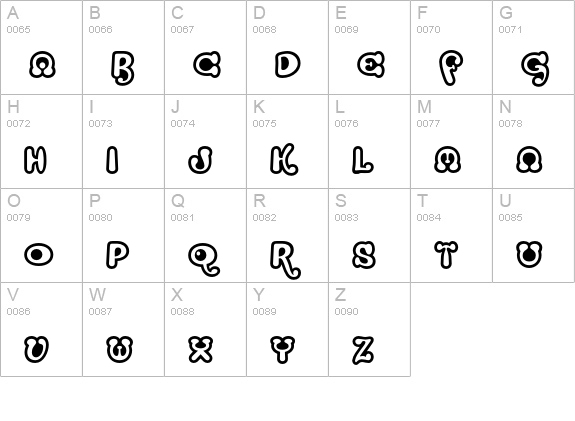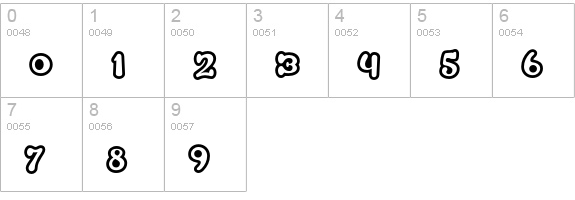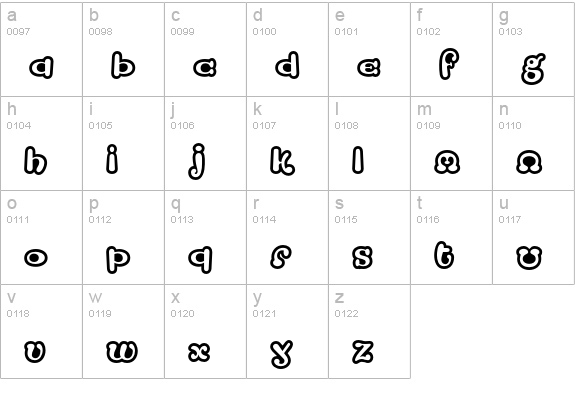
The Strumpf Std Open font is a modern and sophisticated typeface that exudes elegance and creativity. With its stylish and clean lines, Strumpf Std Open adds a touch of class to any design project. This versatile font is perfect for a wide range of applications, from branding and advertising to web design and invitations. One of the best things about Strumpf Std Open is that it is available for free download at FontsMarket.com. This means that you can easily access this high-quality font without having to spend a penny. Whether you are a professional designer or a hobbyist, Strumpf Std Open is a fantastic addition to your font collection. Don't miss out on the opportunity to enhance your projects with the timeless beauty of Strumpf Std Open. Download this incredible font for free today and start creating stunning designs that stand out from the crowd.